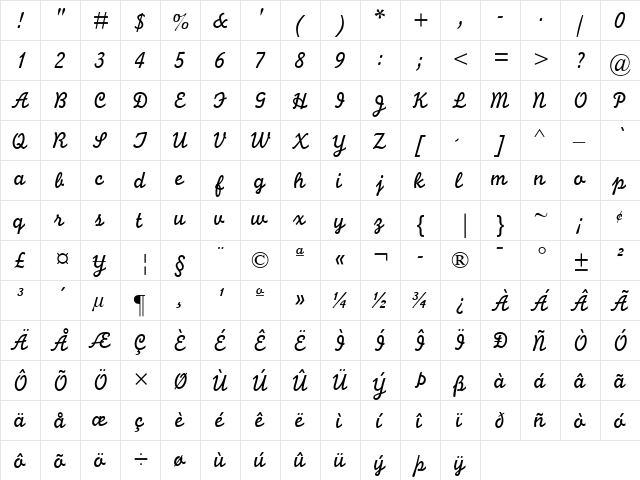
Monoline Script MT Italic Font Preview
Monoline Script MT Italic
Monoline Script MT Italic Font Details
Design Context for Monoline Script MT Typeface
Monoline Script MT brings a calligraphic fluidity to the page — its connecting strokes and expressive curves give it an unmistakably human quality.
Font Pairing: Combine Monoline Script MT with a simple geometric sans for maximum contrast — the tension between flowing curves and clean structure is a classic typographic pairing.
Pro Tip: Pair Monoline Script MT with a clean sans-serif for supporting text. The contrast between fluid script and geometric structure creates an elegant typographic hierarchy.